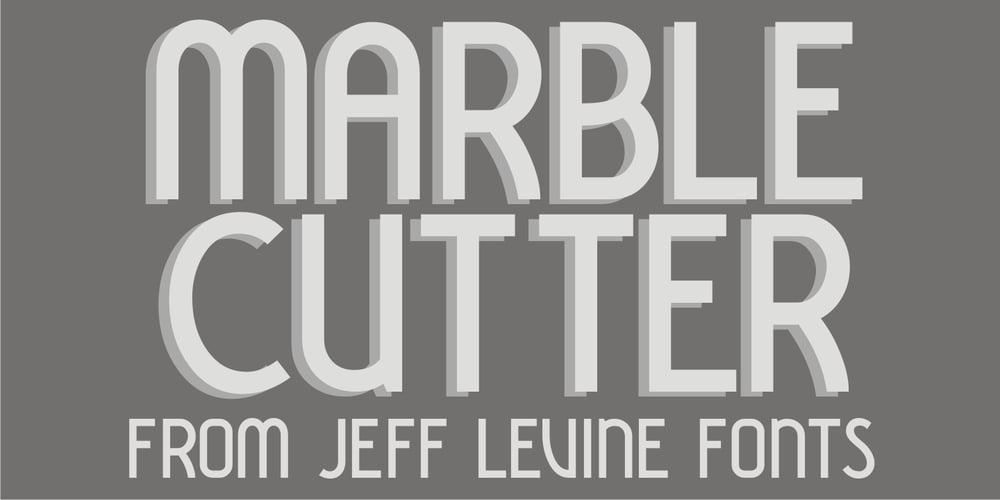
Marble Cutter JNL
Marble Cutter JNL font
Marble Cutter JNL Font Family was designed by Jeff Levine and published by Jeff Levine. Marble Cutter JNL contains 1 styles and family package options. A set of vintage dies for stamping text into marble headstones or other monuments manufactured by The Vermont Marble Company was the basis for Marble Cutter JNL. The Vermont Marble Company was in business from the 1880s until 1976, when the company was acquired by OMYA, Inc. The original company (also known as Vermarco) supplied marble for everything from the Jefferson Memorial to the United Nations building and dozens of other historic structures in-between.